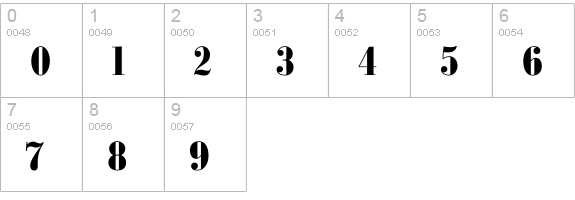
BodoniFB-Bold Font Details
BodoniFB-Bold is a strong, high-contrast variant in the BodoniFB typeface family \xE2\x80\x94 well suited to headlines, attention-grabbing titles, and strong calls-to-action.
BodoniFB-Bold is a sophisticated and elegant typeface that exudes a sense of luxury and refinement. Its bold weight commands attention and makes a statement in any design project. The clean lines and high contrast of BodoniFB-Bold give it a timeless and classic appeal, perfect for adding a touch of sophistication to any text. What makes BodoniFB-Bold even more appealing is that it is available for free download at FontsMarket.com. This means that you can easily access this stunning font and use it in your projects without any cost. Whether you're designing a logo, creating a poster, or working on a branding project, BodoniFB-Bold is a versatile font that will elevate your designs to the next level. Download this exquisite typeface today and add a touch of elegance to your work.